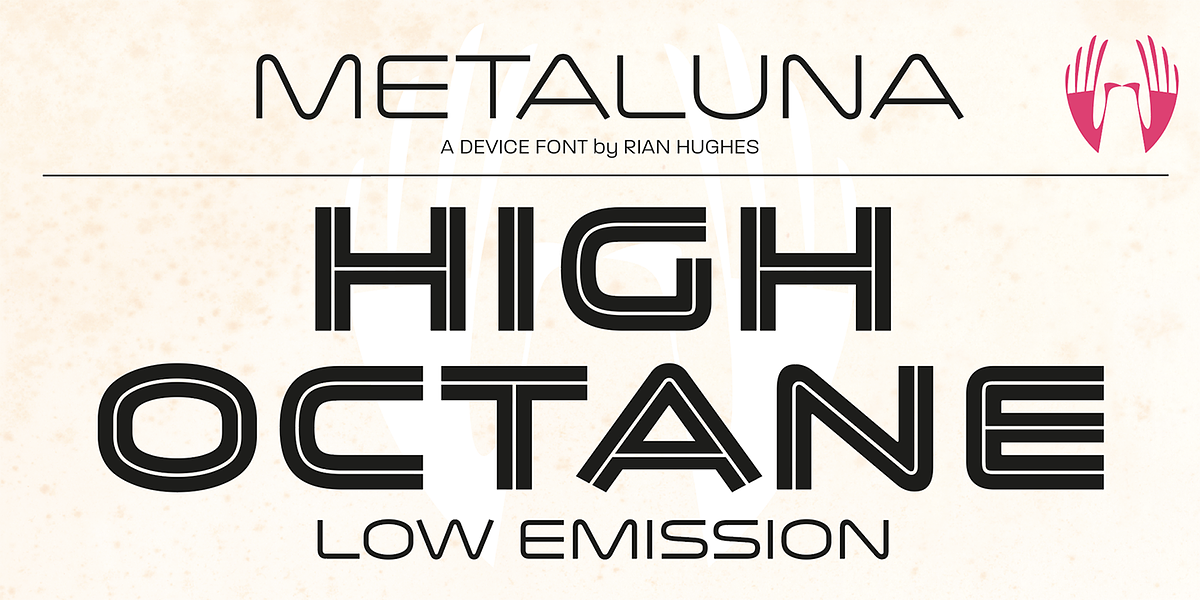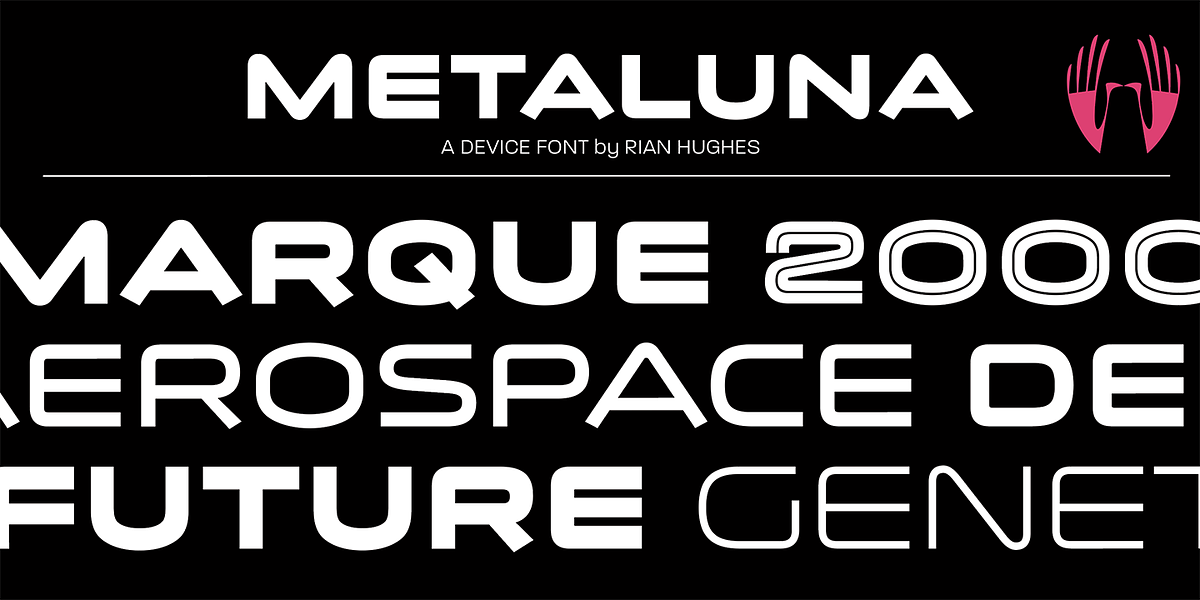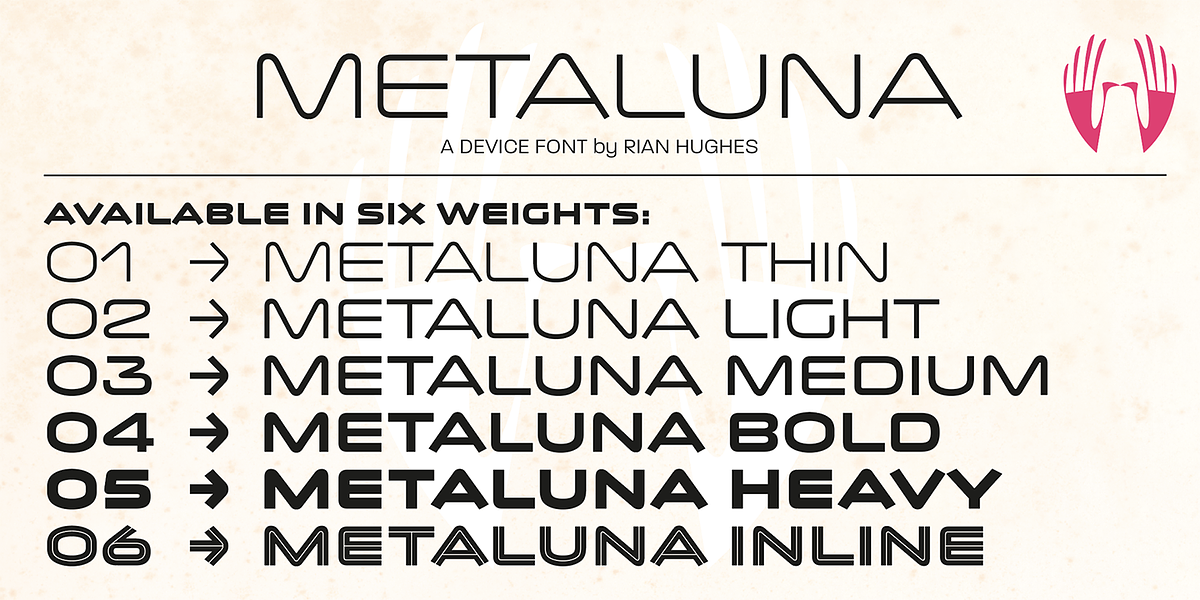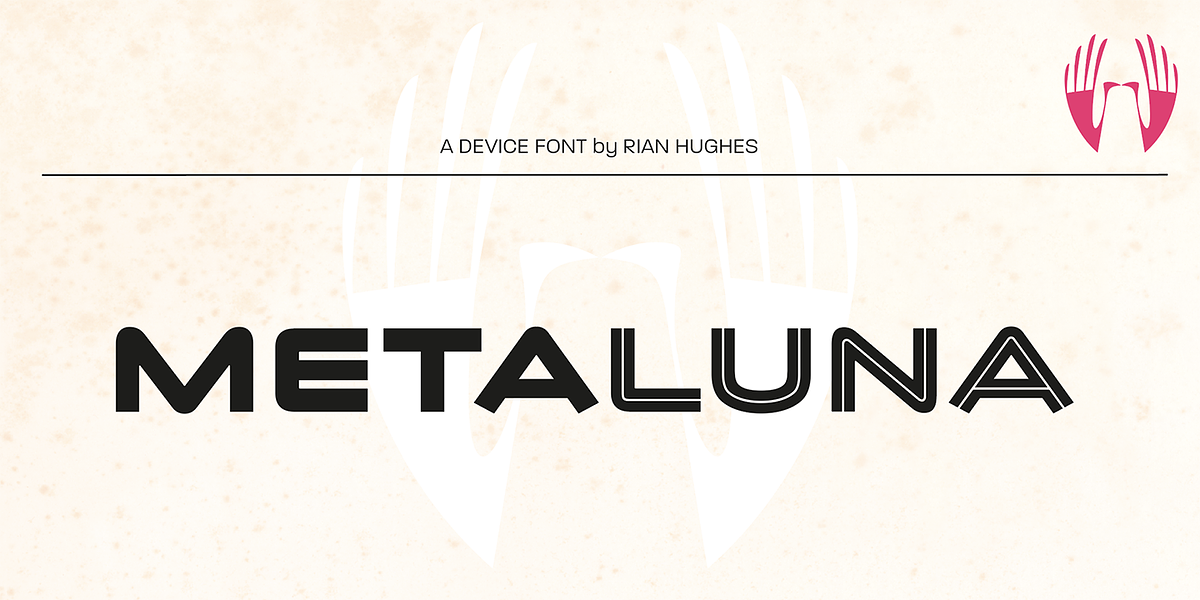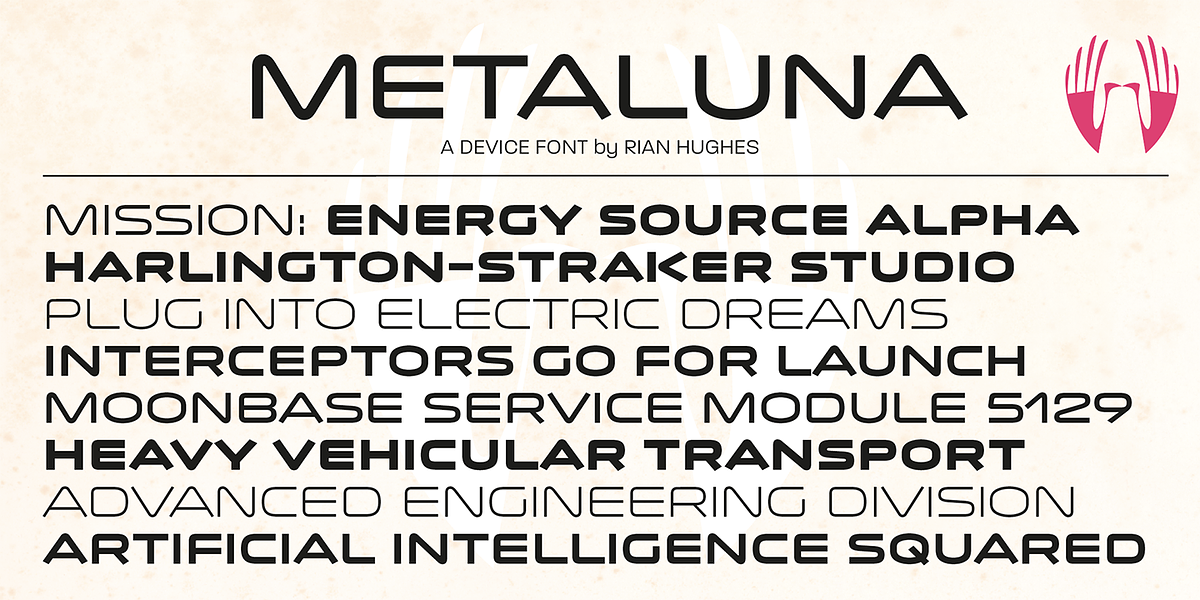
Metaluna
Metaluna is a geometric sans serif font family inspired by the classic Forbidden Planet logo. It features five weights and an extended width. Its sleek and modern aesthetic makes it suitable for branding tech companies, supercar marques, or high-precision engineering multinationals.